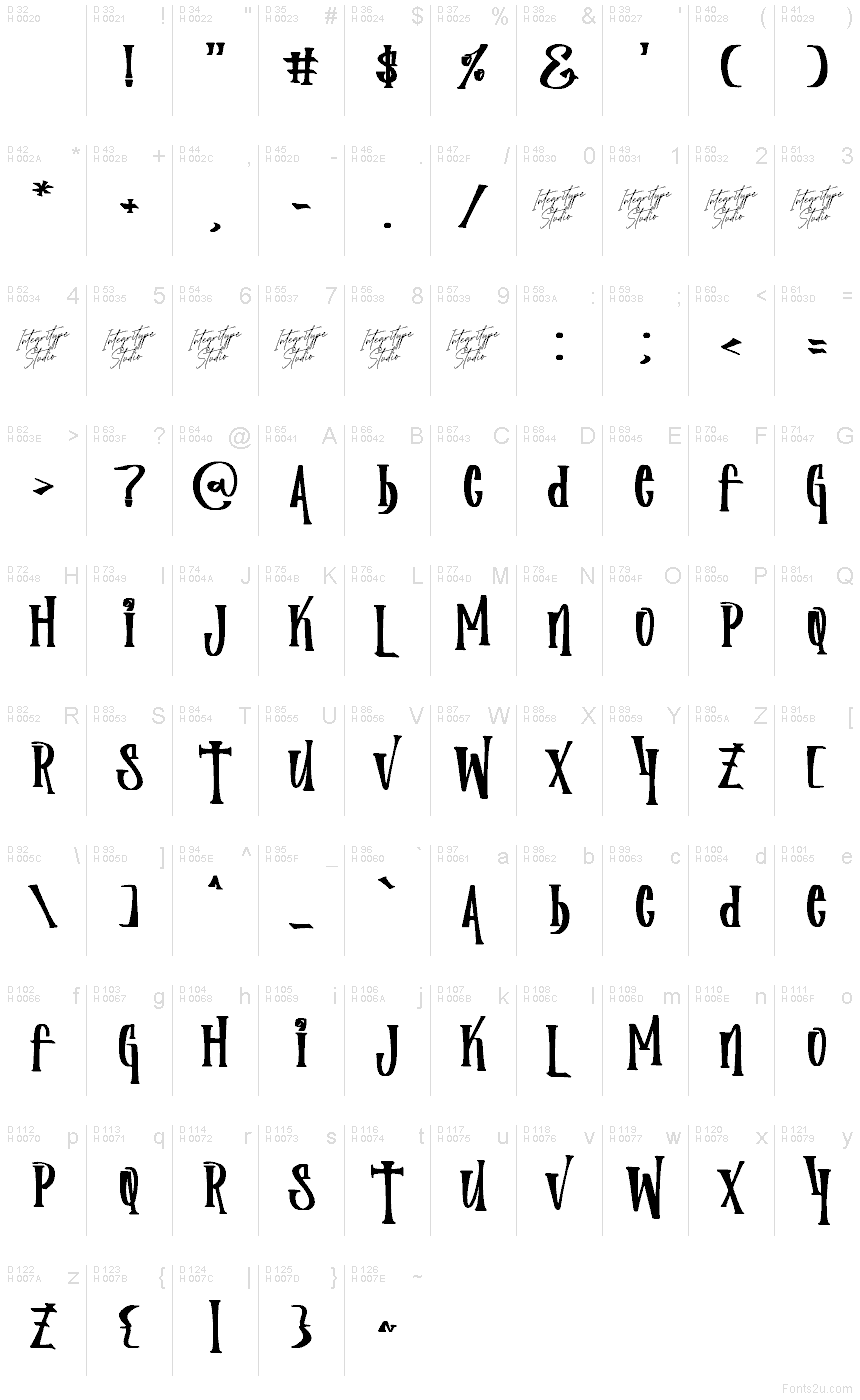
Monster Spooky font by Integritype Studio is a free Halloween display font that leans into lanky, hand-drawn letters with spidery stretches and playful wobble. The strokes feel inky and alive, like they crept across the page, giving headlines an instant haunted-house vibe without going full gore. It reads clearly at a glance, so you get character and legibility in the same breath.
Using Monster Spooky, spooky-season graphics snap into place: trick‑or‑treat posters, party invites, haunted house signage, kids’ craft printables, seasonal social posts, and candy bag mockups. This free font thrives big and bold, where its quirky rhythm can breathe. Pair it with a clean, neutral sans for body copy, and let the spooky letters do the scaring up top.